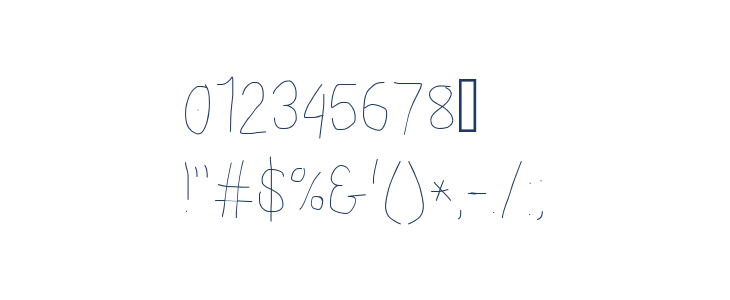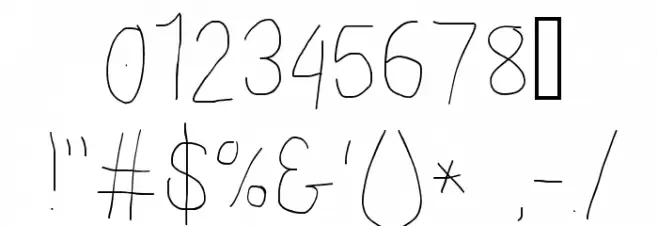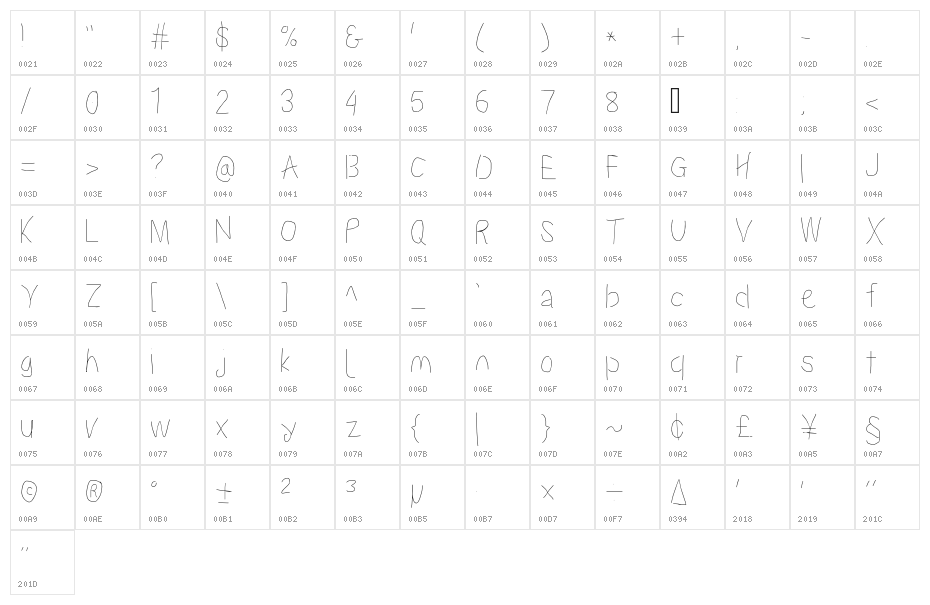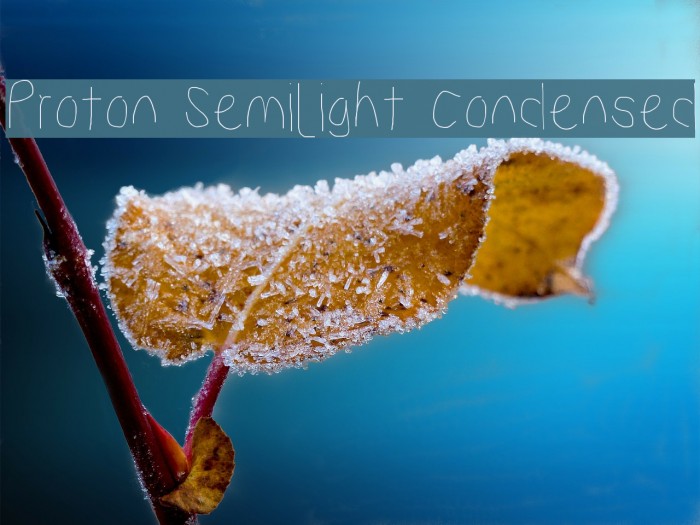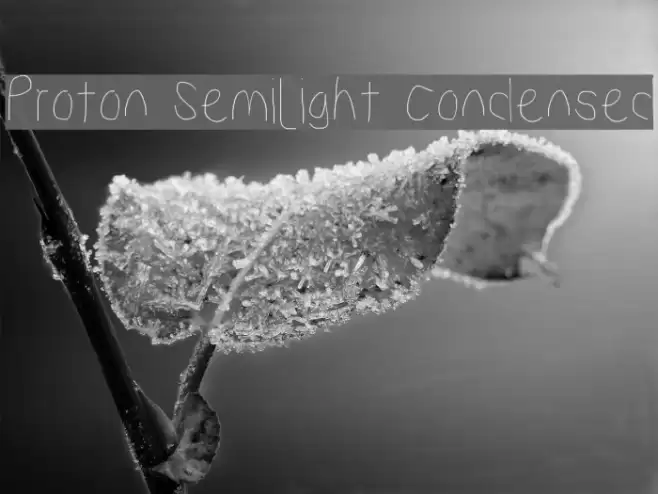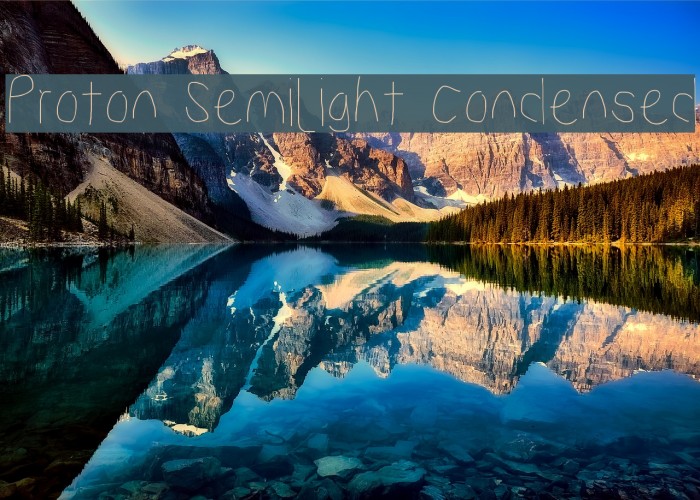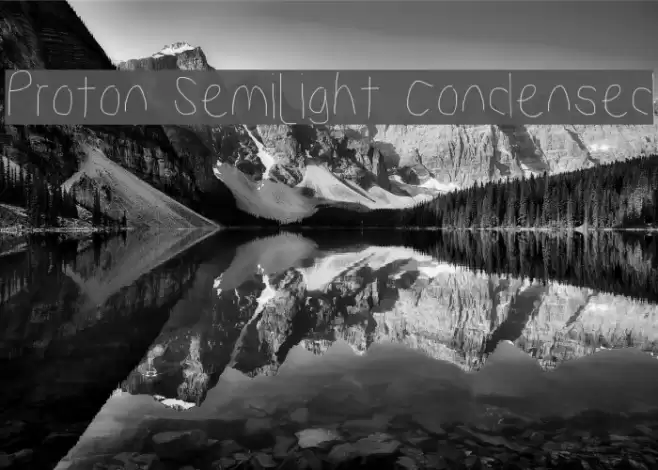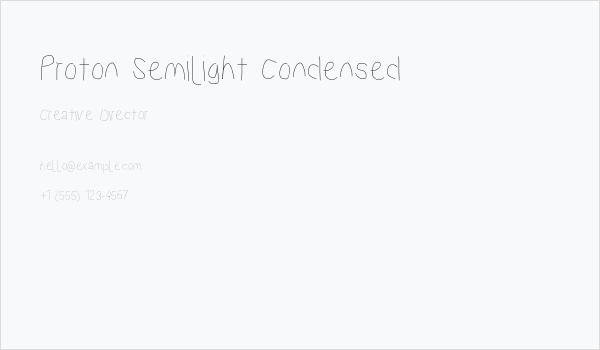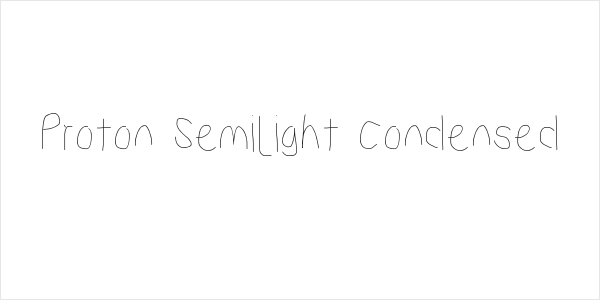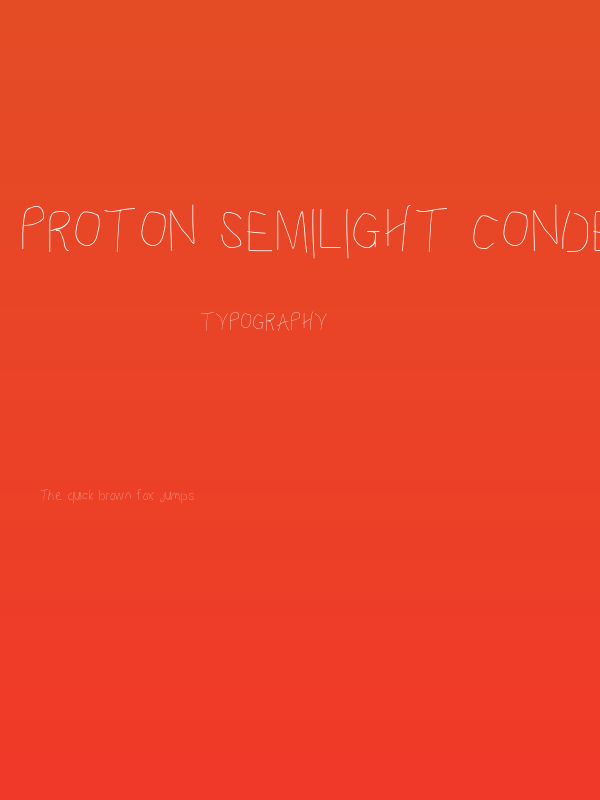
Proton Semilight Condensed Font
Proton Semilight Condensed Description
This font features a light, airy style with a condensed structure, giving it a modern and minimalist appearance. The characters are crafted with a thin stroke, providing a delicate and elegant feel. The uppercase letters maintain a consistent height, while the lowercase letters exhibit a slight variation in height, adding a touch of playfulness. The numerals are clear and straightforward, complementing the overall simplicity of the design. Special characters are included, maintaining the same thin and refined aesthetic. This font is ideal for projects that require a clean and contemporary look.